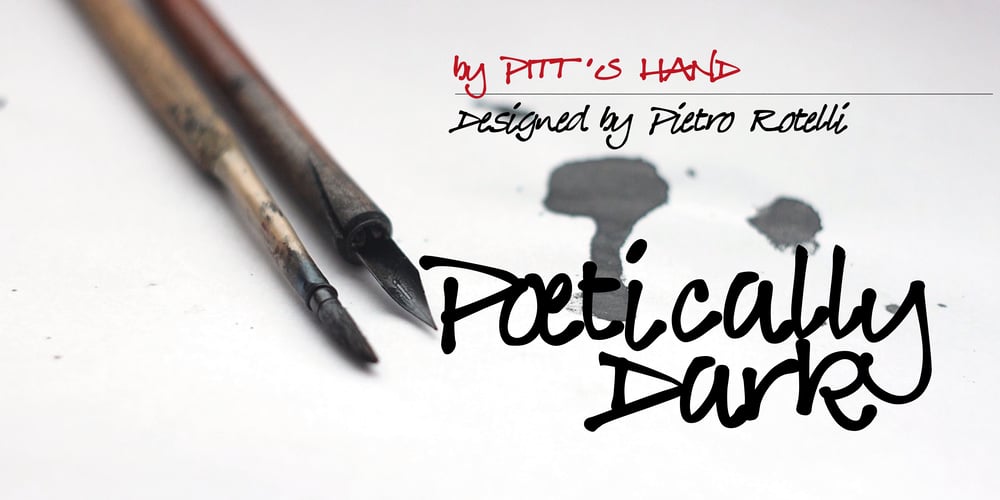
Poetically Dark
Poetically Dark font
Poetically Dark Font Family was designed by Pietro Rotelli and published by Pitt’s Hand. Poetically Dark contains 4 styles and family package options. Poetically Dark is a font created to recall a certain type of dark and romantic writing from another century. Well-groomed letters, but written instinctively, as if in the throes of a creative frenzy. In a clash between the refined taste of the past and the ever-present speed of communication.